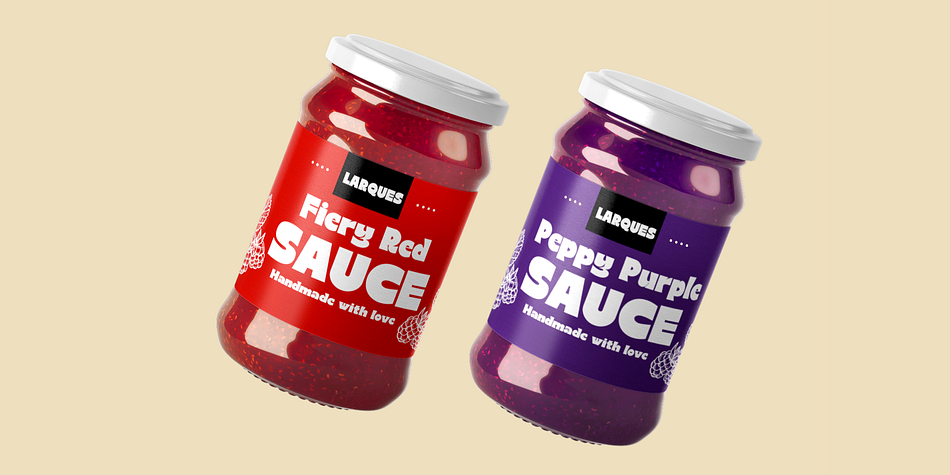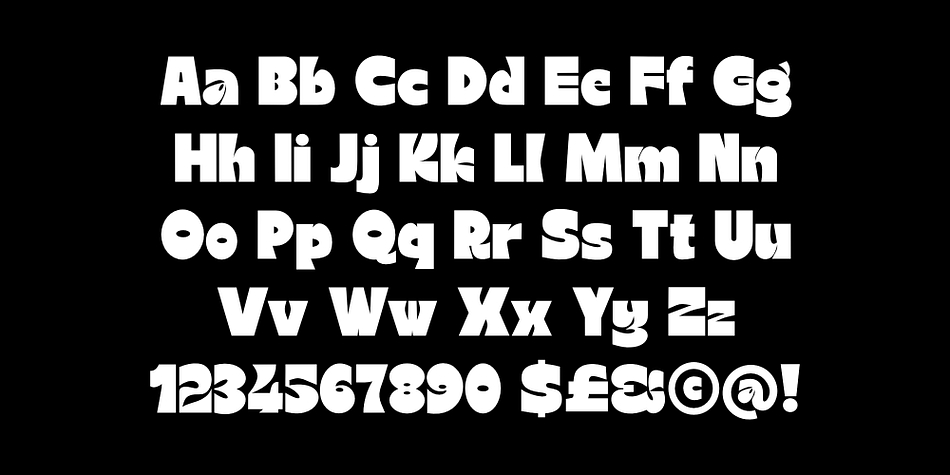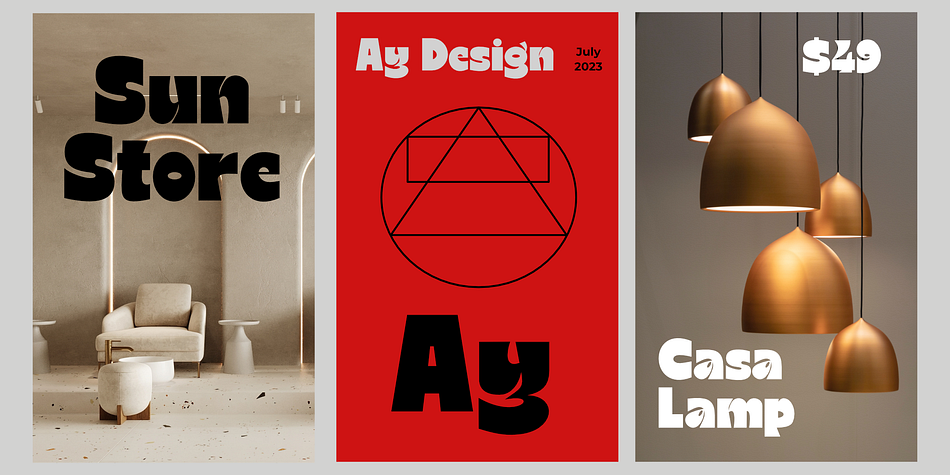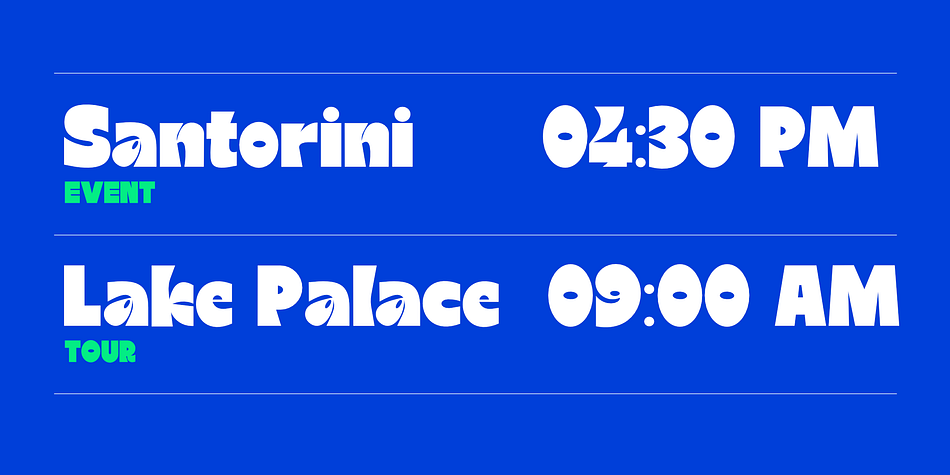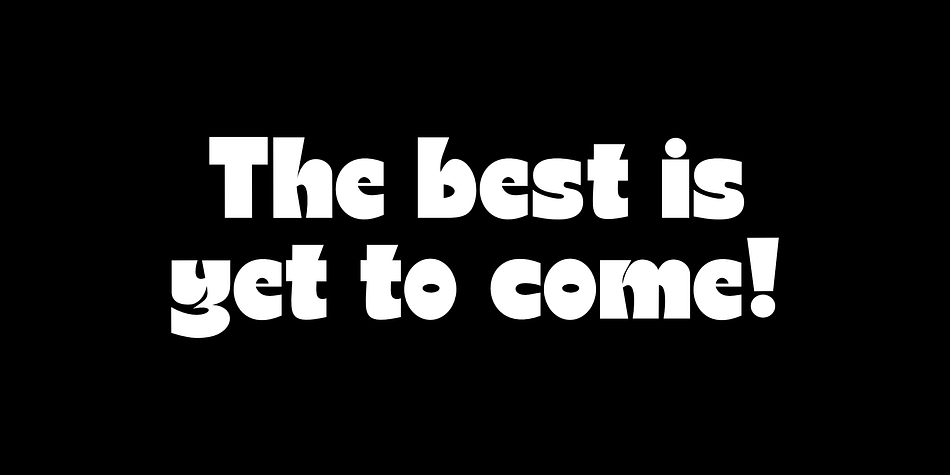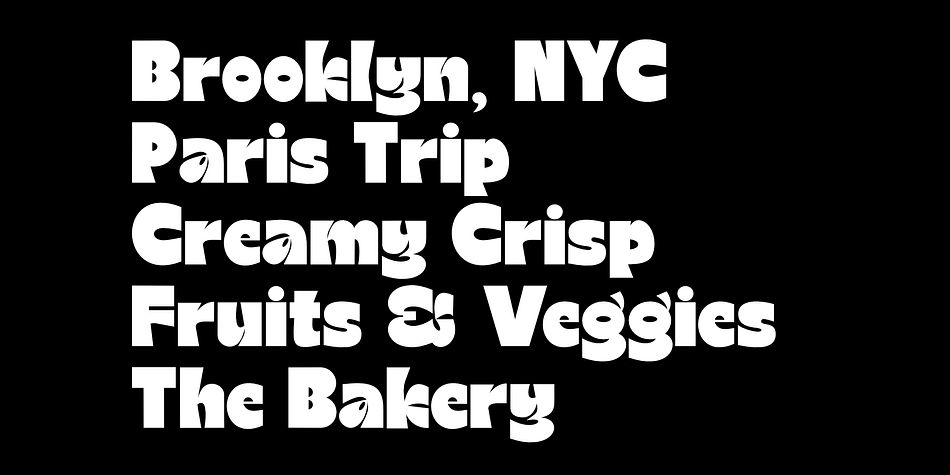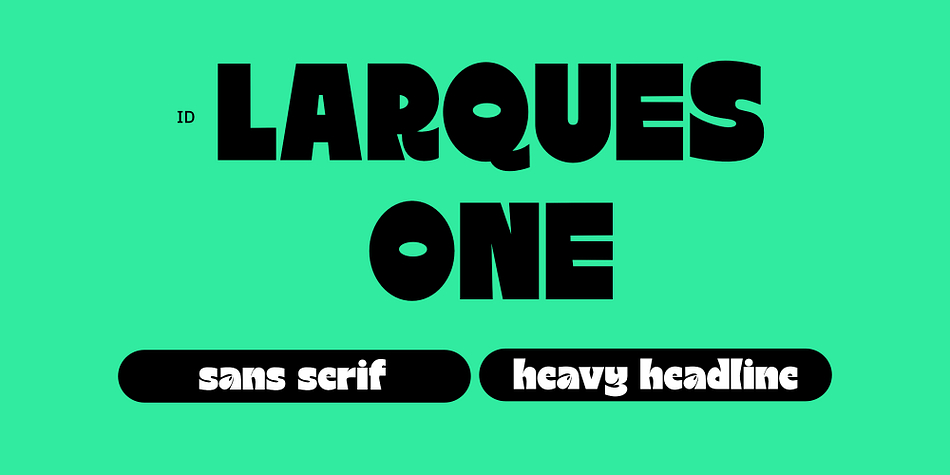
ID Larques One
Designed by Swati Bhatnagar, ID Larques One is a display sans font family published by Izouuss Design.
Introducing Larques One, a display sans-serif typeface that brings a fun, friendly and delightful vibe to your projects. Larques One is not too serious and has a touch of playfulness that makes it perfect for branding, packaging, headlines, posters and more. Larques One is also equipped with multi-language support and offers excellent versatility and customisation.
Designer Swati Bhatnagar